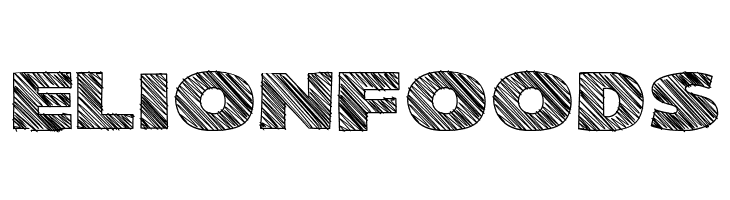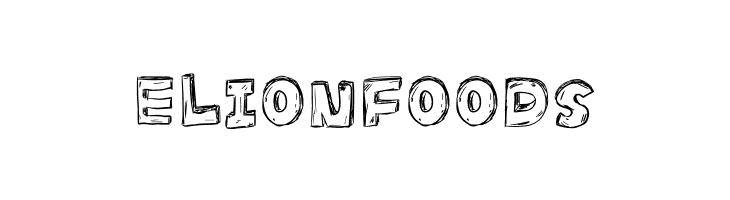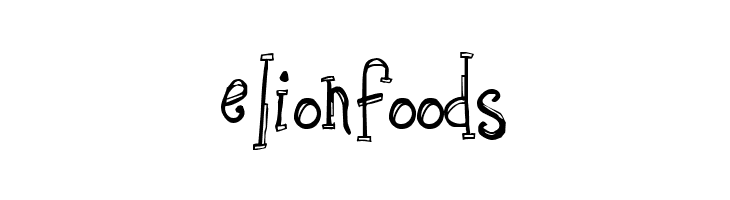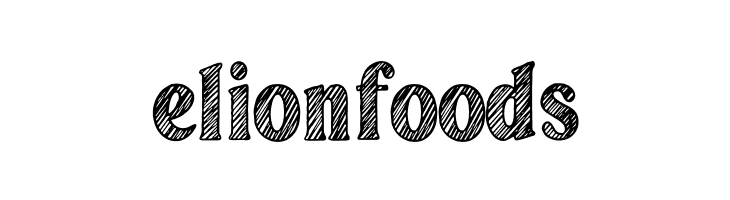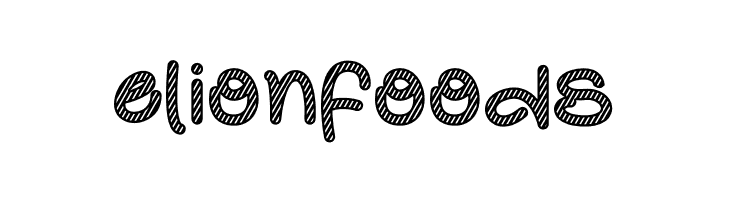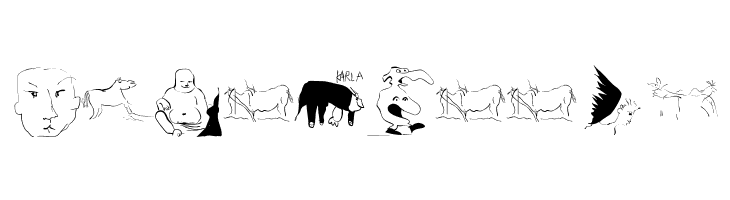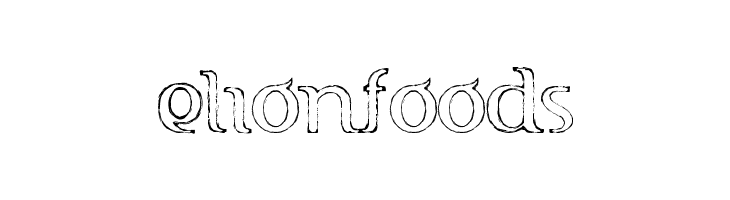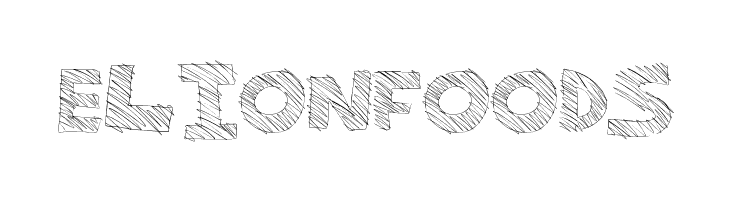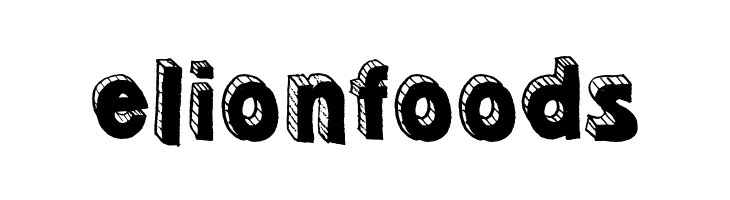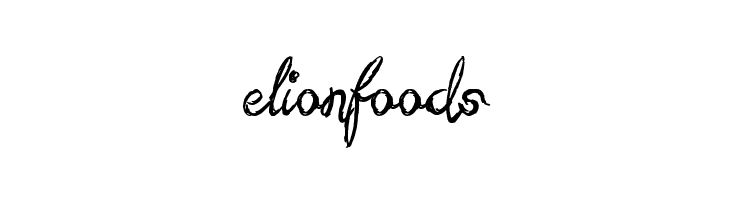
Etchas Italic Font
A bold, brush-style italic font with textured strokes and dynamic movement.
101! EtchASketch Font
A bold, geometric font with a 3D block effect, reminiscent of retro digital displays.
Etched Font
A textured, serif font with a vintage, etched appearance.
Etchas Font
A bold, textured, hand-drawn font with a brush-like appearance.
Line Etch Font
A bold, line-etched decorative font with artistic outlines.
Razor Etched Font
A razor-etched, decorative font with characters enclosed in square outlines.
etchy Font
A bold, sketch-like font with an energetic, hand-drawn style.
Amaya Technical Etching Regular Font
A geometric, etched font with a technical, industrial style.
Mystic Etchings Normal Font
A bold, artistic font with a whimsical, hand-drawn style.
etchAsketch Font
A sketch-like, distressed font with a hand-drawn, artistic appearance.
Etchstone Regular Font
A bold, hand-drawn font with jagged edges and a dynamic, energetic style.
EtcherSkesch Regular Font
A bold, geometric font with blocky, angular letterforms and uniform thickness.
EtcherSkesch Inverse Font
A bold, geometric font with a strong, block-like design.
EtchAsketch Font
A distressed, hand-drawn font with a playful, nostalgic style.